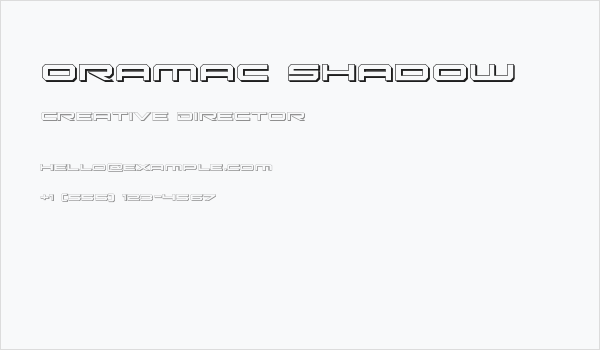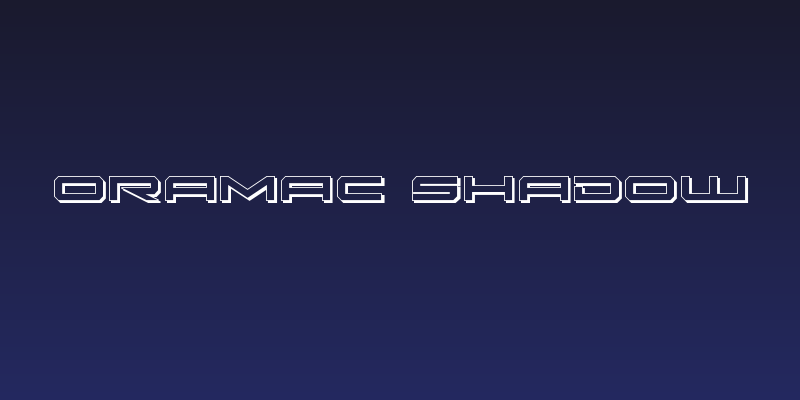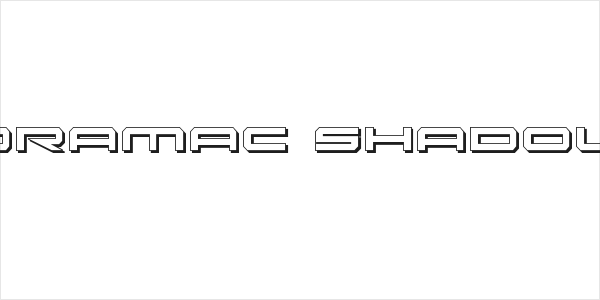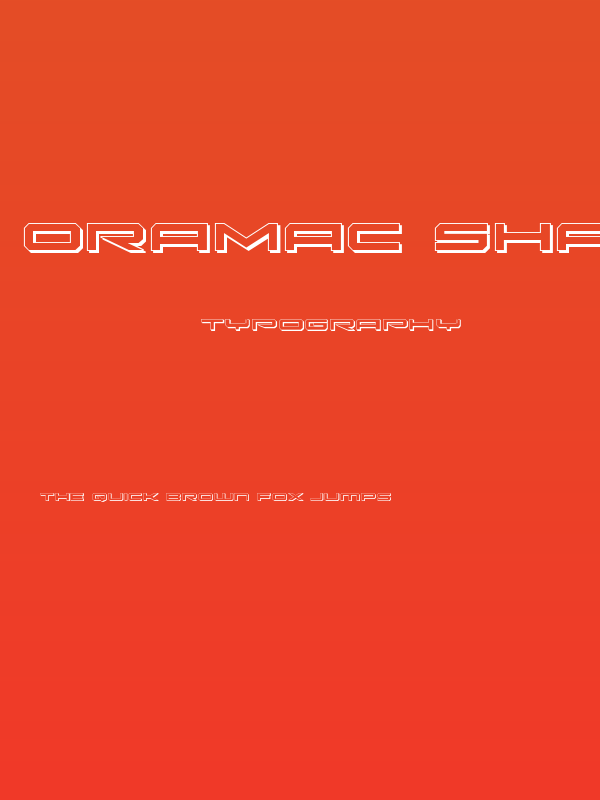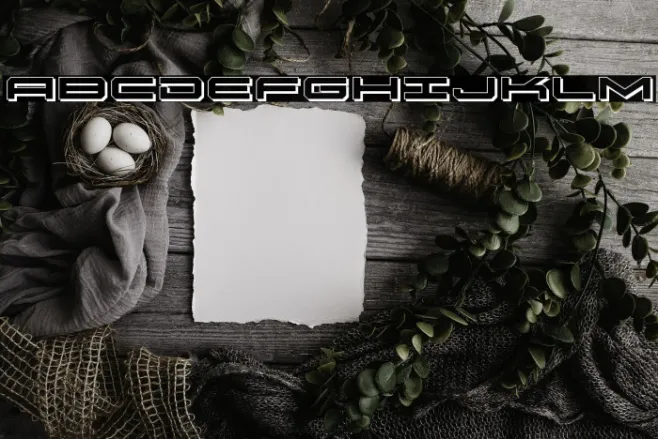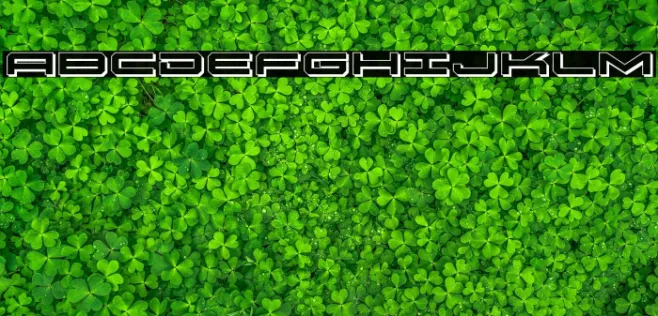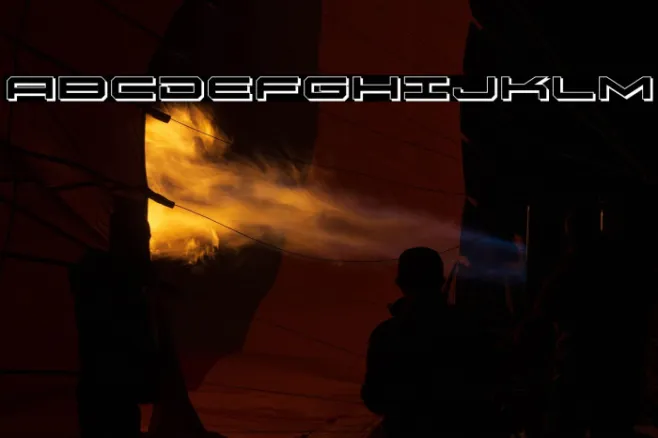
Oramac Shadow Font
Oramac Shadow Description
This font features a bold, geometric design with a distinct shadow effect that gives it a three-dimensional appearance. The characters are constructed with clean, straight lines and sharp angles, creating a futuristic and technical feel. The uppercase and lowercase letters maintain a consistent style, with the shadow adding depth and a sense of movement. The numerals and special characters are designed to match the overall aesthetic, ensuring a cohesive look across all text. The font's unique style makes it stand out, ideal for projects that require a modern and eye-catching typeface.
| Proposed Projects | Ideal for technology-themed designs, video game titles, futuristic branding, and eye-catching posters. |